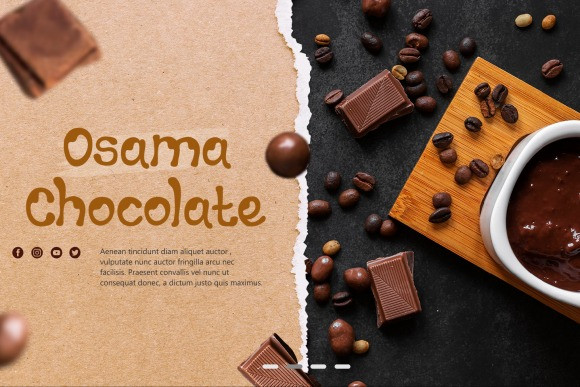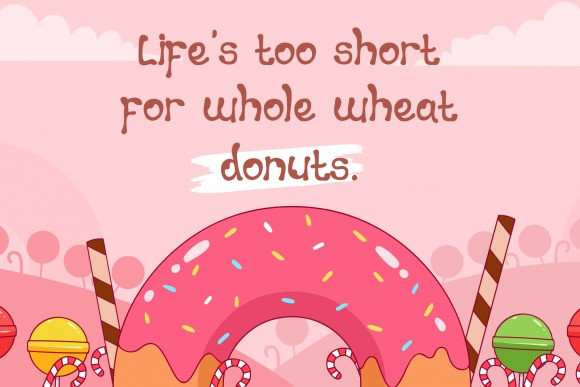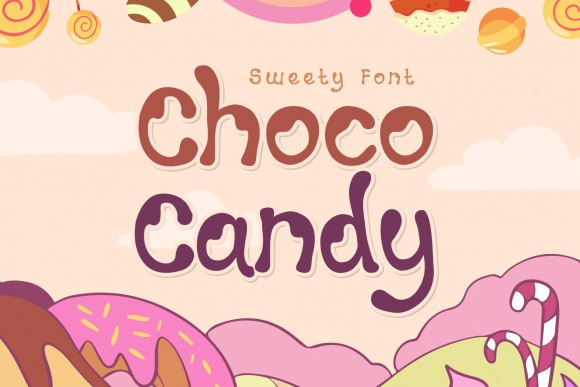
Hearing Sans Serif Font
Hearing – Vintage Sans Serif Font is a font with distinctive handwritten characters perfect for branding projects, logos, wedding designs, media posts, advertisements, product packaging, product designs, labels, photography, watermarks, invitations, stationery, and any project who need handwritten dishes.